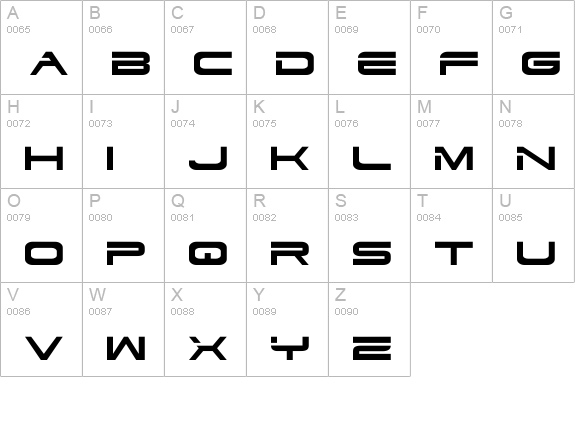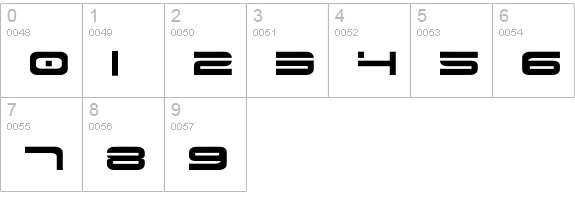
Dodger Font Details
Dodger font is a modern and stylish typeface that exudes confidence and sophistication. With its clean lines and bold design, Dodger font is perfect for making a statement in any project. This versatile font can be used for a variety of purposes, from headlines to logos to branding materials. One of the best features of Dodger font is that it is available for free download at FontsMarket.com. This means that you can easily access this high-quality font without any cost, making it a great choice for designers on a budget. With its sleek and contemporary look, Dodger font will elevate your designs and help you stand out from the crowd. Whether you're working on a print project or a digital design, Dodger font is sure to make a lasting impression.